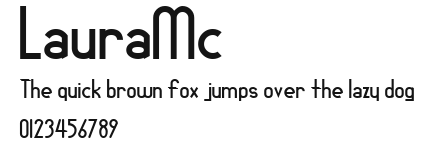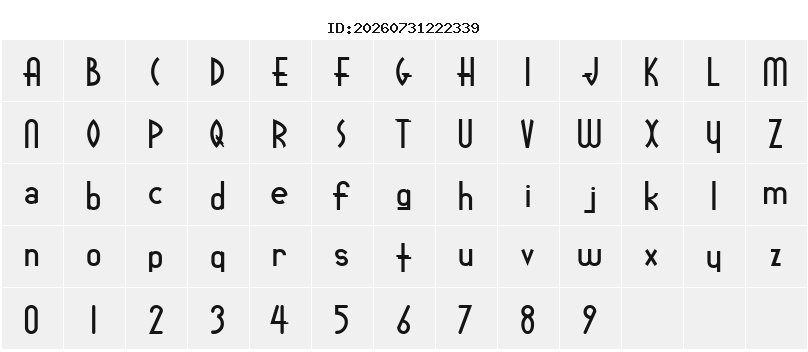
• Font Name: LauraMc
• Font Style: Crary
• Full Font Name: LauraMc Crary
About LauraMc.ttf
LauraMc.ttf is a modern, elegant sans-serif font designed for ultimate readability and visual harmony. Perfect for branding, headlines, web design, and print materials.